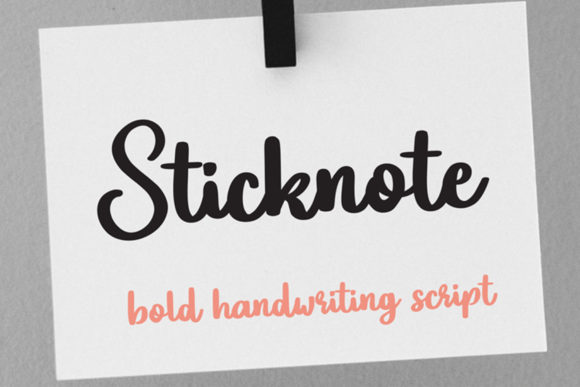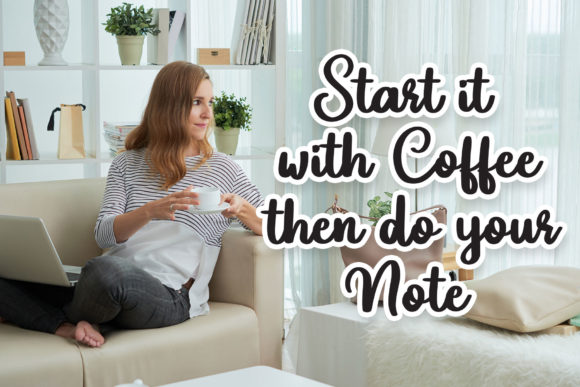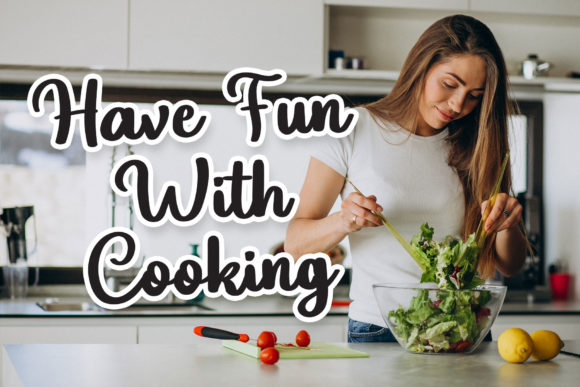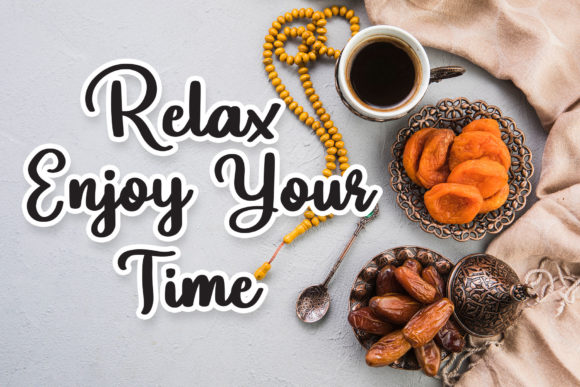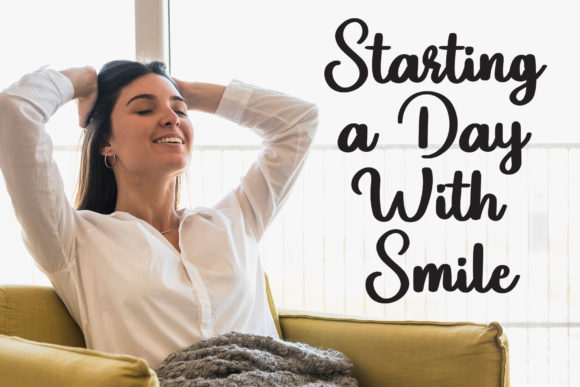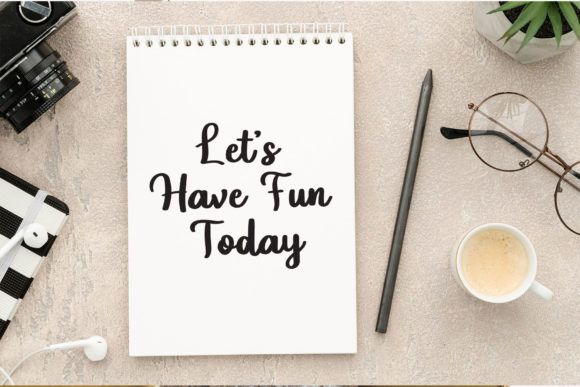
Sticknote Font
About Sticknote Font
Sticknote is a sweet and friendly handwritten font. Its round characters as well as its balanced style make this font adept to a wide variety of designs. Add it to your craft ideas and notice how it makes them stand out!